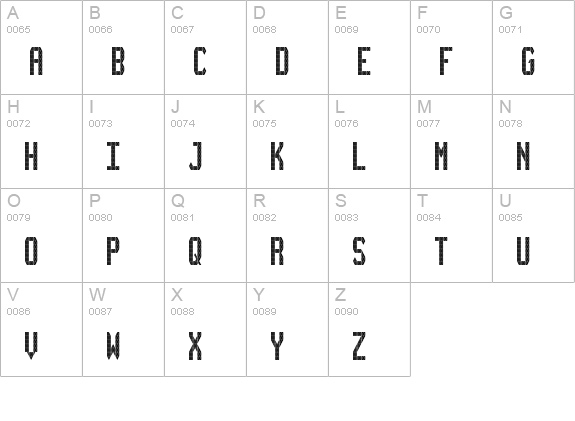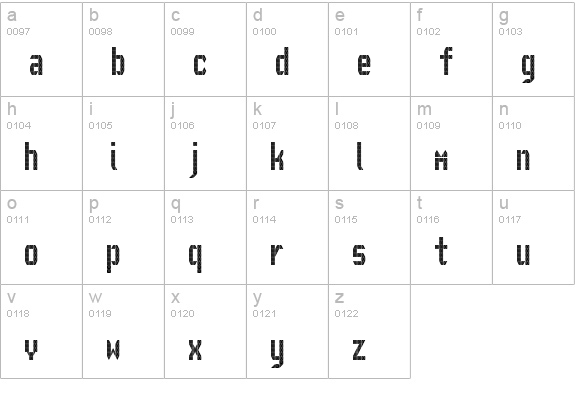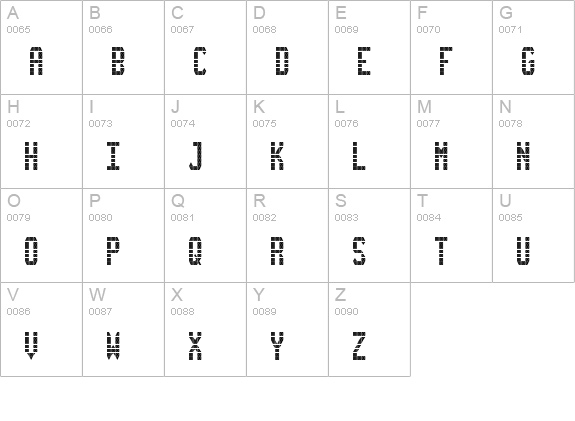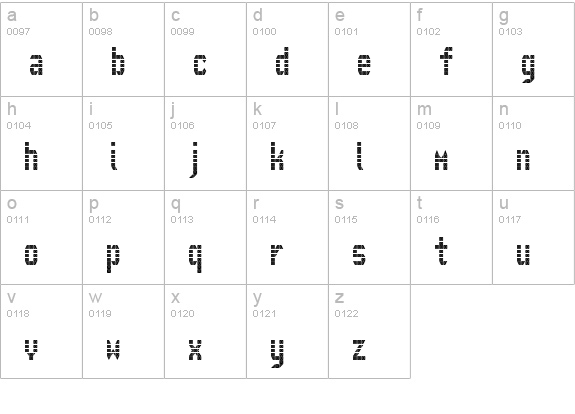
Gateway-B2 Font Details
Gateway-B2 is a modern and stylish font that combines elegance with readability. Its sleek lines and sophisticated curves make it perfect for a wide range of design projects, from branding to editorial design. The versatility of Gateway-B2 allows it to be used in both digital and print media, making it a valuable addition to any designer's toolkit. What makes Gateway-B2 even more appealing is that it is available for free download at FontsMarket.com. This means that you can easily access this high-quality font without any cost, making it an excellent choice for both professional designers and hobbyists alike. With its unique blend of modernity and classic appeal, Gateway-B2 is sure to make a bold statement in any project it is used in.